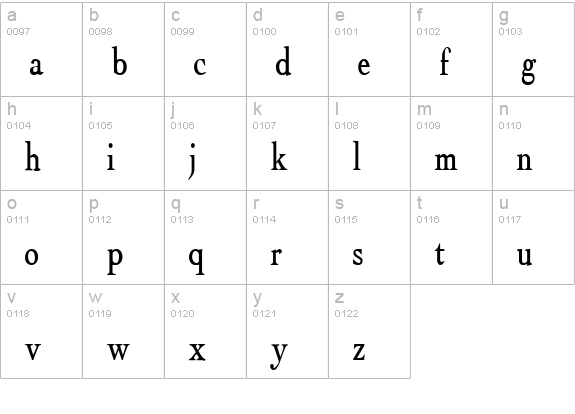
Albatross Bold Font Details
Albatross Bold is a strong, high-contrast variant in the Albatross typeface family \xE2\x80\x94 well suited to headlines, attention-grabbing titles, and strong calls-to-action.
Albatross Bold font is a striking and versatile typeface that exudes elegance and sophistication. Its bold and distinctive letterforms make a bold statement, perfect for headlines, logos, and other design projects that require a strong visual presence. The sleek lines and sharp angles of Albatross Bold give it a modern and contemporary look that is sure to captivate and engage viewers. What's even better is that Albatross Bold font is available for free download at FontsMarket.com. This means you can easily access this stunning typeface and incorporate it into your designs without any cost. Whether you're a professional graphic designer or a DIY enthusiast, Albatross Bold font is a valuable addition to your font collection. Download it today and elevate your design projects with its bold and eye-catching aesthetic.